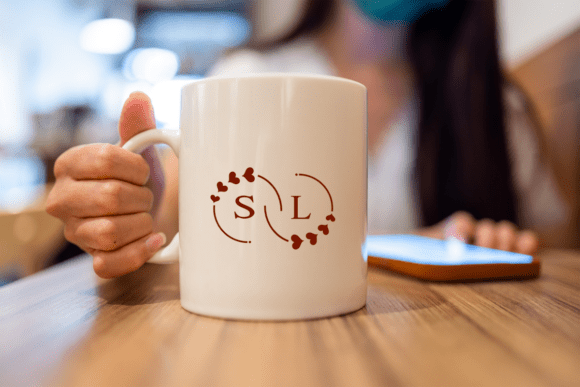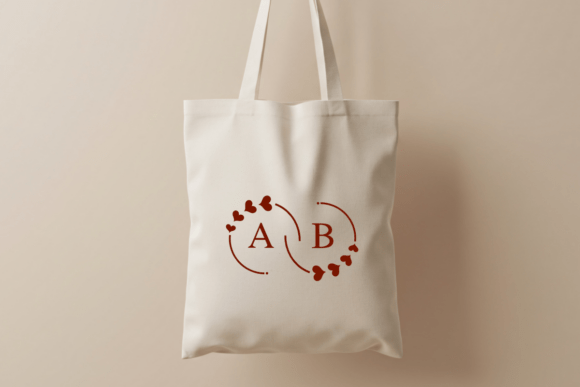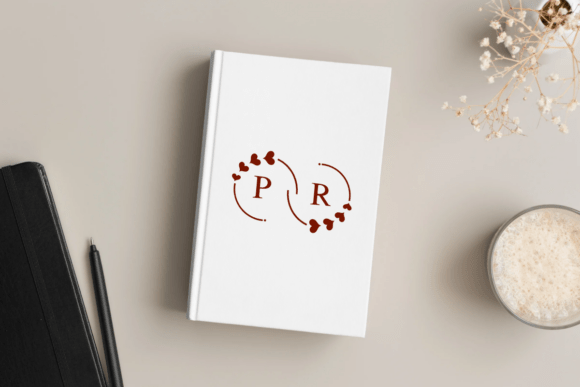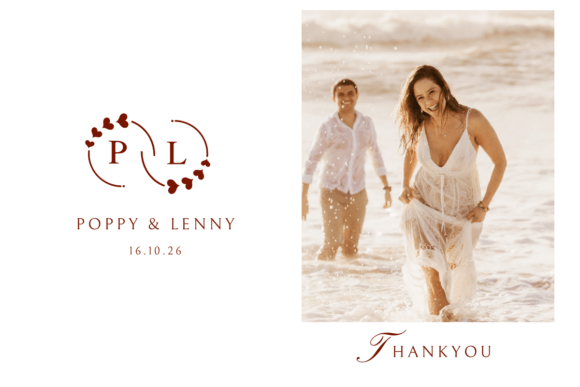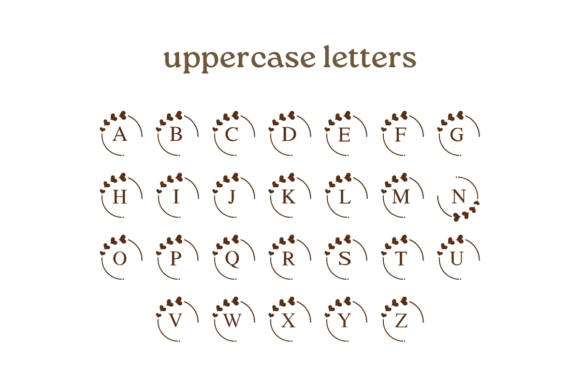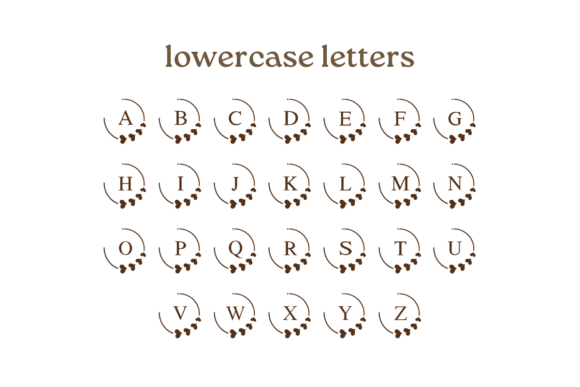
Introducing Heartline Monogram Font: Elevate Your Designs with Elegance
Are you a designer, crafter, or DIY enthusiast looking for a unique and captivating font to add a touch of elegance to your creative projects? Look no further than the Heartline Monogram Font! This lovely decorative font is sure to inspire your imagination and take your designs to the next level.
What is Heartline Monogram Font?
Heartline Monogram Font is a beautiful, hand-crafted typeface that features intricate and delicate monogram designs. The font is characterized by its distinctive heartline motif, which adds a romantic and whimsical touch to any design. With its elegant and sophisticated style, Heartline Monogram Font is perfect for a wide range of creative projects, from crafting and scrapbooking to graphic design and digital art.
Key Features of Heartline Monogram Font
- Unique and Exclusive Design: Heartline Monogram Font boasts a one-of-a-kind design that will set your creations apart from the rest.
- Elegant and Sophisticated Style: The font’s intricate details and heartline motif evoke a sense of luxury and refinement.
- Versatile and Adaptable: Use Heartline Monogram Font for a variety of projects, from paper crafting and card making to digital art and graphic design.
How to Use Heartline Monogram Font in Your Designs
Heartline Monogram Font is incredibly versatile and can be used in a multitude of creative projects. Here are a few ideas to get you started:
- Monogrammed Cards and Invitations: Add a personal touch to your correspondence with beautifully designed monogrammed cards and invitations.
- Custom Crafts and Scrapbooking: Use Heartline Monogram Font to create stunning custom crafts, scrapbook pages, and journal entries.
- Digital Art and Graphic Design: Incorporate the font into your digital art, graphics, and branding projects for a unique and eye-catching look.
- Wedding and Event Decor: Use Heartline Monogram Font to create beautiful wedding stationery, signage, and event decor.
Tips and Tricks for Working with Heartline Monogram Font
To get the most out of Heartline Monogram Font, here are a few tips and tricks to keep in mind:
- Experiment with Colors and Textures: Try pairing the font with different colors, textures, and patterns to add depth and interest to your designs.
- Mix and Match with Other Fonts: Combine Heartline Monogram Font with other fonts to create visually appealing contrast and hierarchy.
- Pay Attention to Scale and Proportion: Ensure that your monogram designs are proportional and visually balanced.
In conclusion, Heartline Monogram Font is a stunning decorative font that is sure to inspire your creativity and elevate your designs. With its unique and exclusive design, elegant style, and versatility, this font is a must-have for designers, crafters, and DIY enthusiasts. So why wait? Add Heartline Monogram Font to your creative toolkit today and get ready to create beautiful, one-of-a-kind designs that will leave a lasting impression!